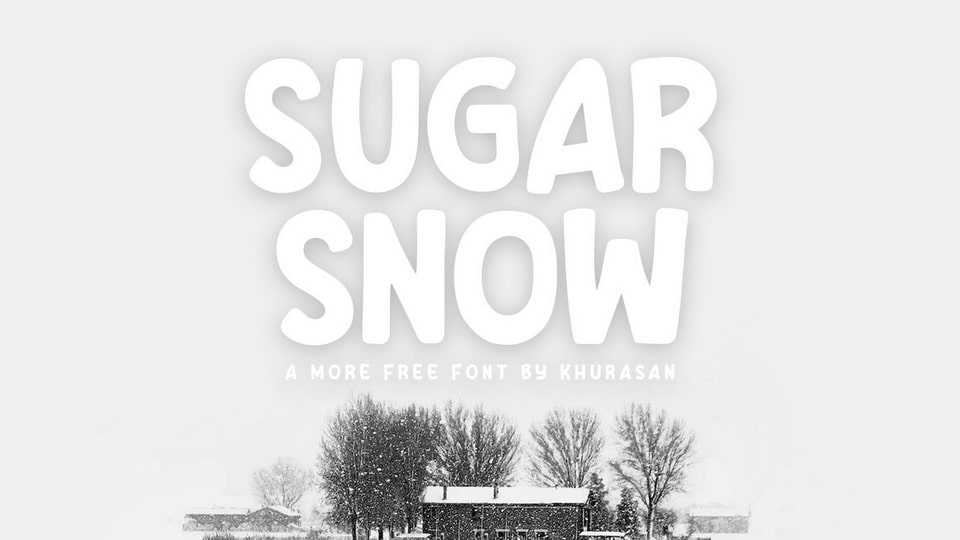
Download Sugar Snow font, a bold yet friendly display typeface with a cartoon look. Sugar Snow is perfect for posters, logos, magazines, book covers, banners, and many more.